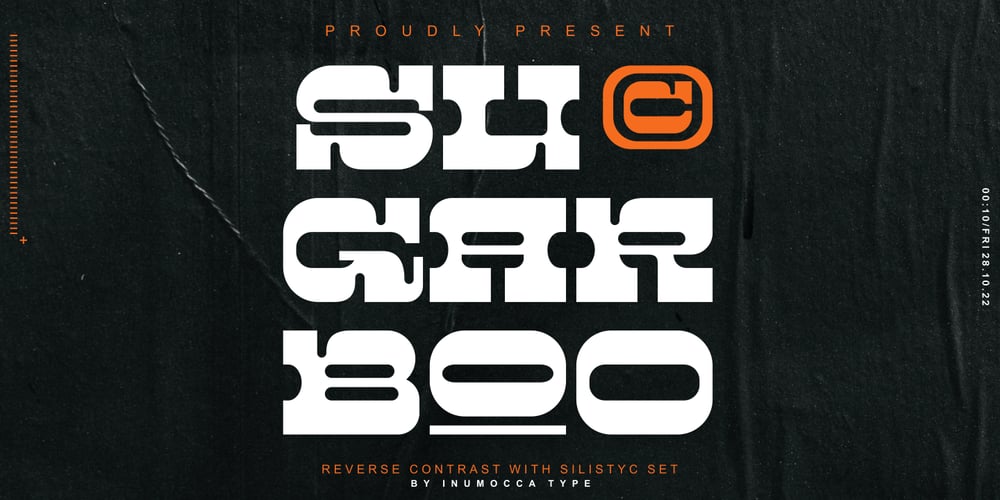
SugarBoo Font Family was designed by Inu Mocca and published by Inumocca. SugarBoo contains 1 styles and family package options. SugarBoo is A Reverse-Contrast letterform , Modern look, Fresh, eyecatching, strong character and power full.The Typeface comes with Stylistic Set CombinationsExellent typeface to use for covering your Project, like Branding, Movie Title, Headline Letter, Bookcover or Book Content, Magazine cover, Poster, Quotes Lettering, Logos, and more your project design.- Unique glyphs- Multilingual Characters Support- UPPERCASE- Lowercase- Numeric- Symbol- Punctuation Character- Stylistic Setinumocca type Studio